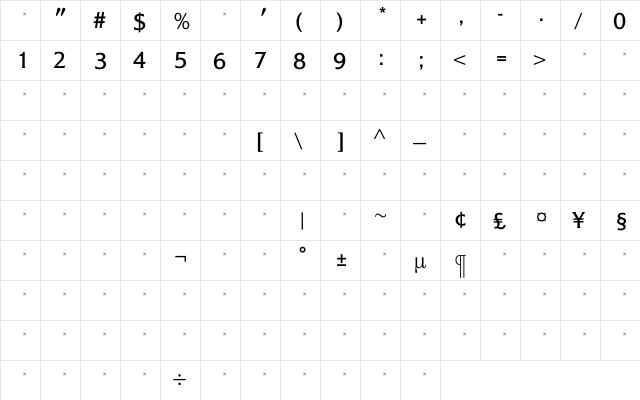
AlexonMediumTab Regular Font Preview
AlexonMediumTab Regular
Design Context for AlexonMediumTab Typeface
AlexonMediumTab offers clean, dependable letterforms without strong stylistic allegiance, making it a practical choice for designers who need flexibility.